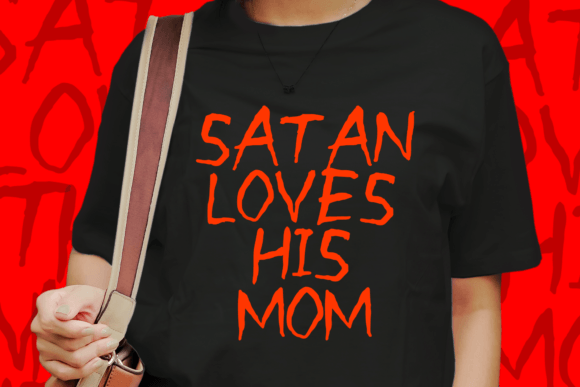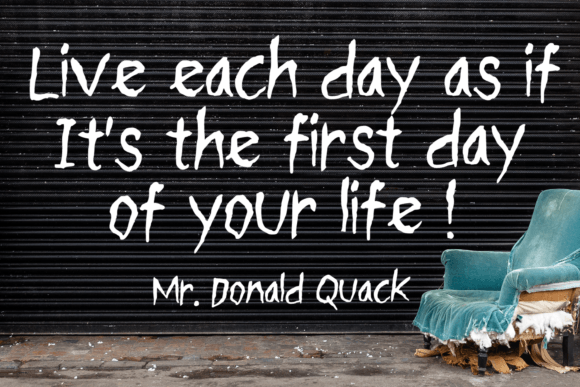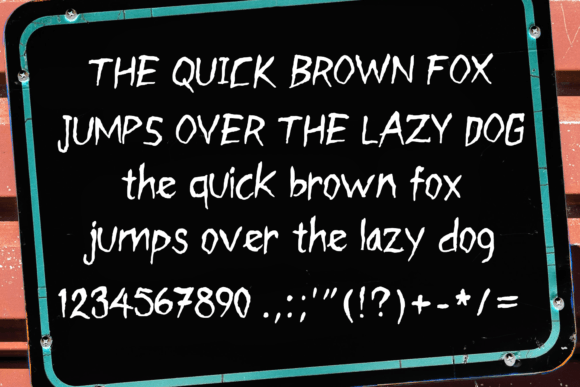
Introduction to Nasty Graffiti Font
Nasty Graffiti is a very cool graffiti tag font, inspired by California street art movement scenes mixed with horror and Halloween vibes.
It will elevate a wide range of design projects to the highest level You can use this font for many design ideas such as stickers, t-shirt designs, amazing logo designs, magazine or book covers, comics, cartoon drawings, and many more.
Key Features of Nasty Graffiti Font
Why Choose Nasty Graffiti Font?
Nasty Graffiti Font offers exceptional quality and versatility, making it a valuable addition to your design toolkit. Whether you’re creating for personal projects or commercial use, Nasty Graffiti Font delivers professional results.